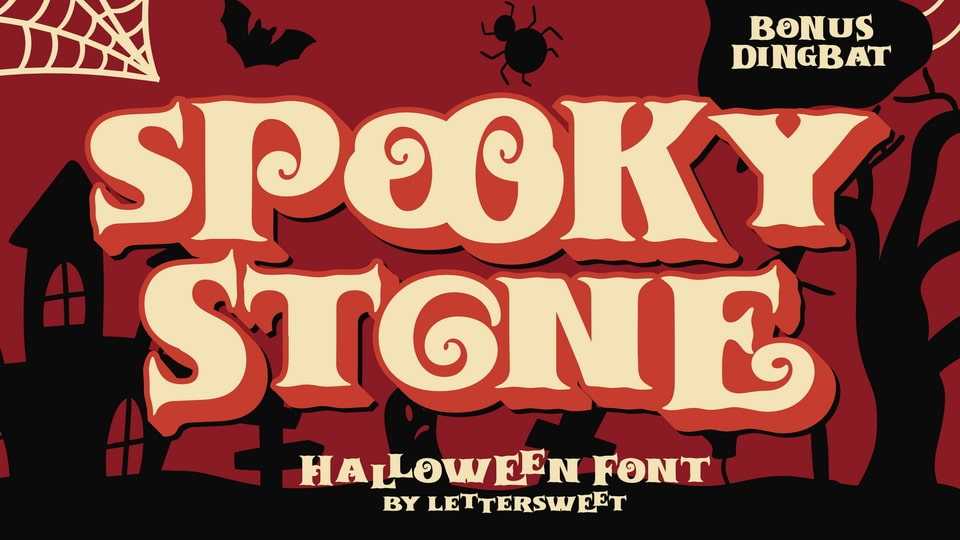
Download Spooky Stone font, a fun and playful typeface with a scary horror theme. Masterfully designed to become a true favorite, this font has the potential to bring each of your creative ideas to the highest level!